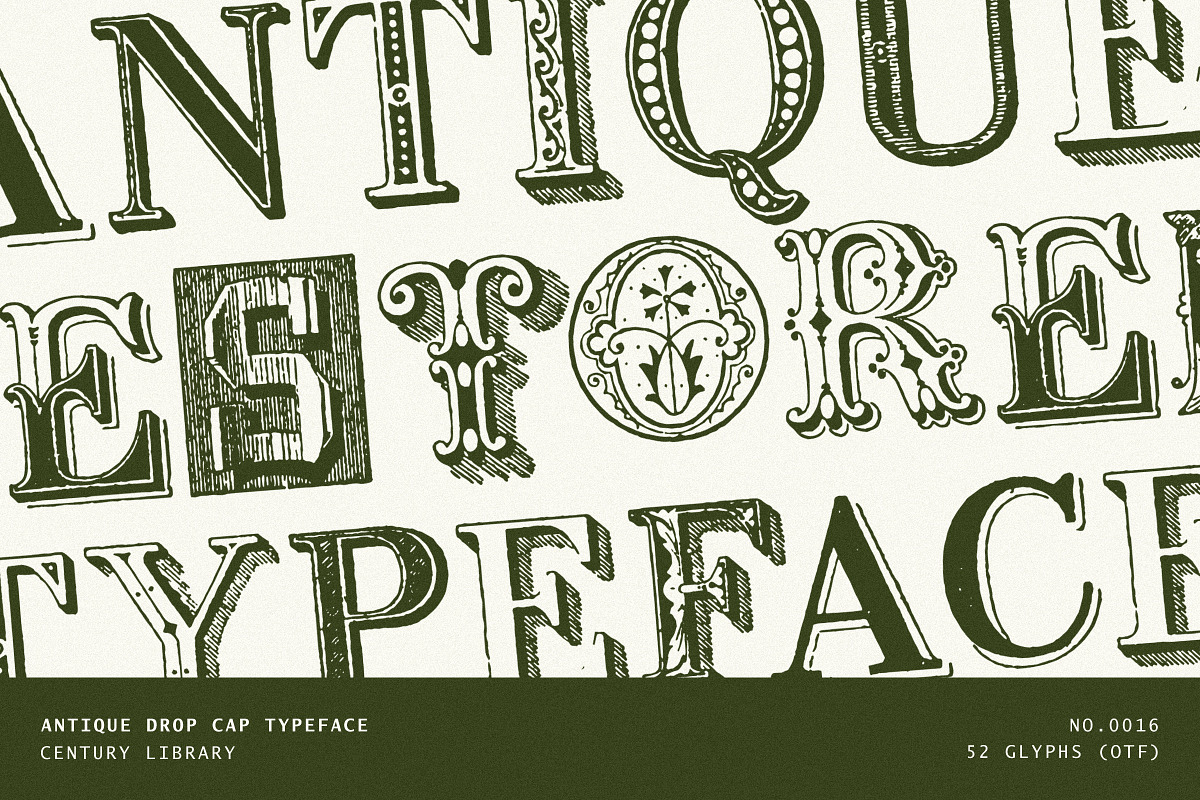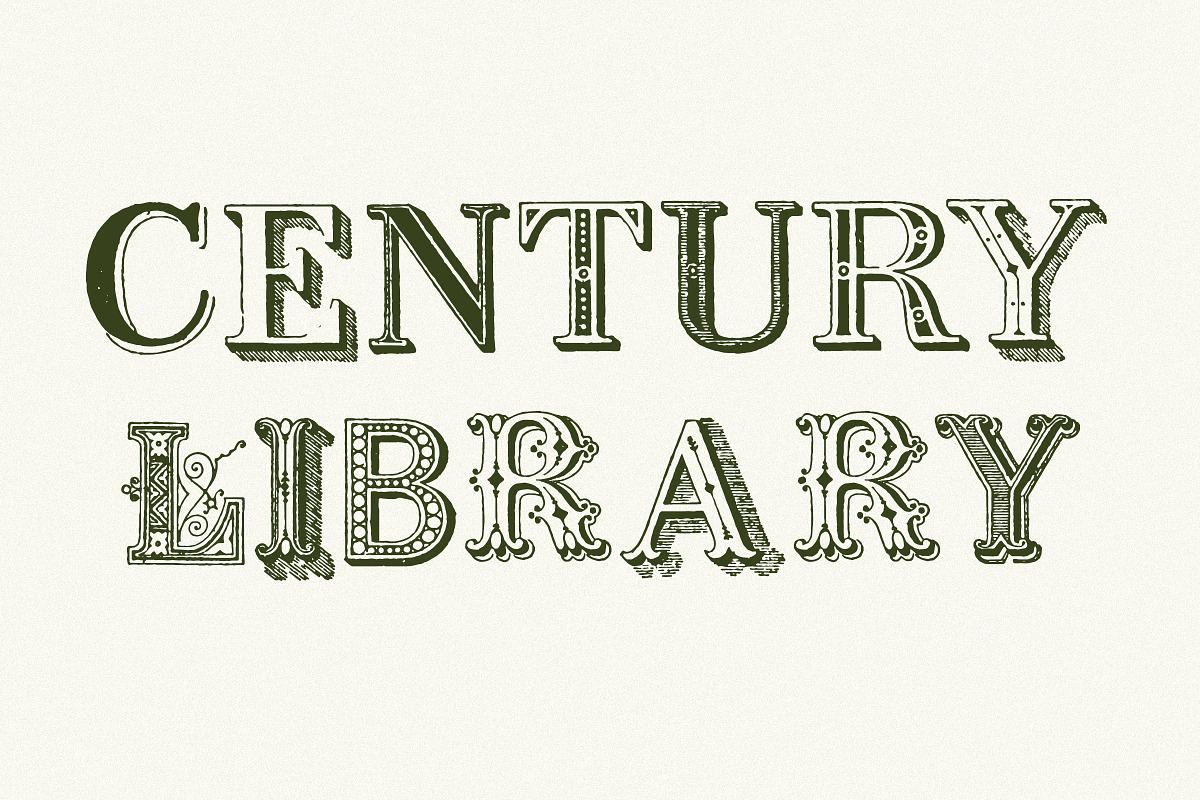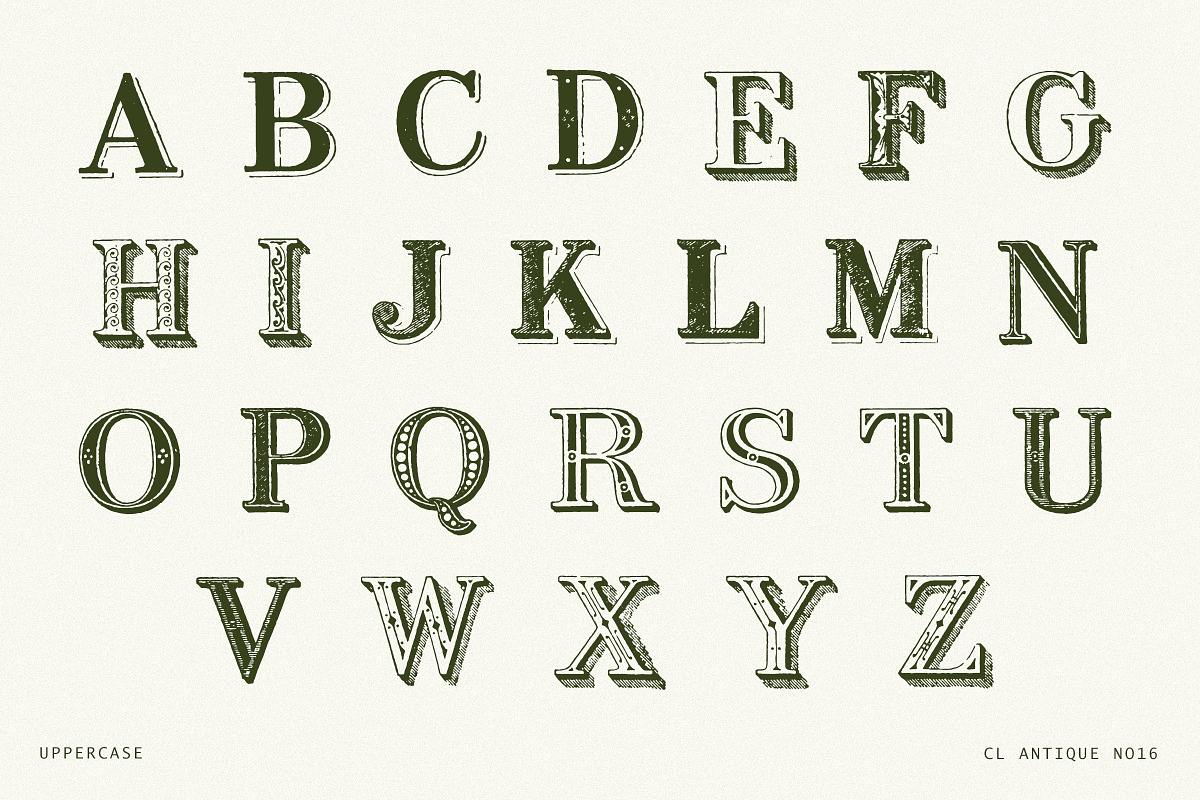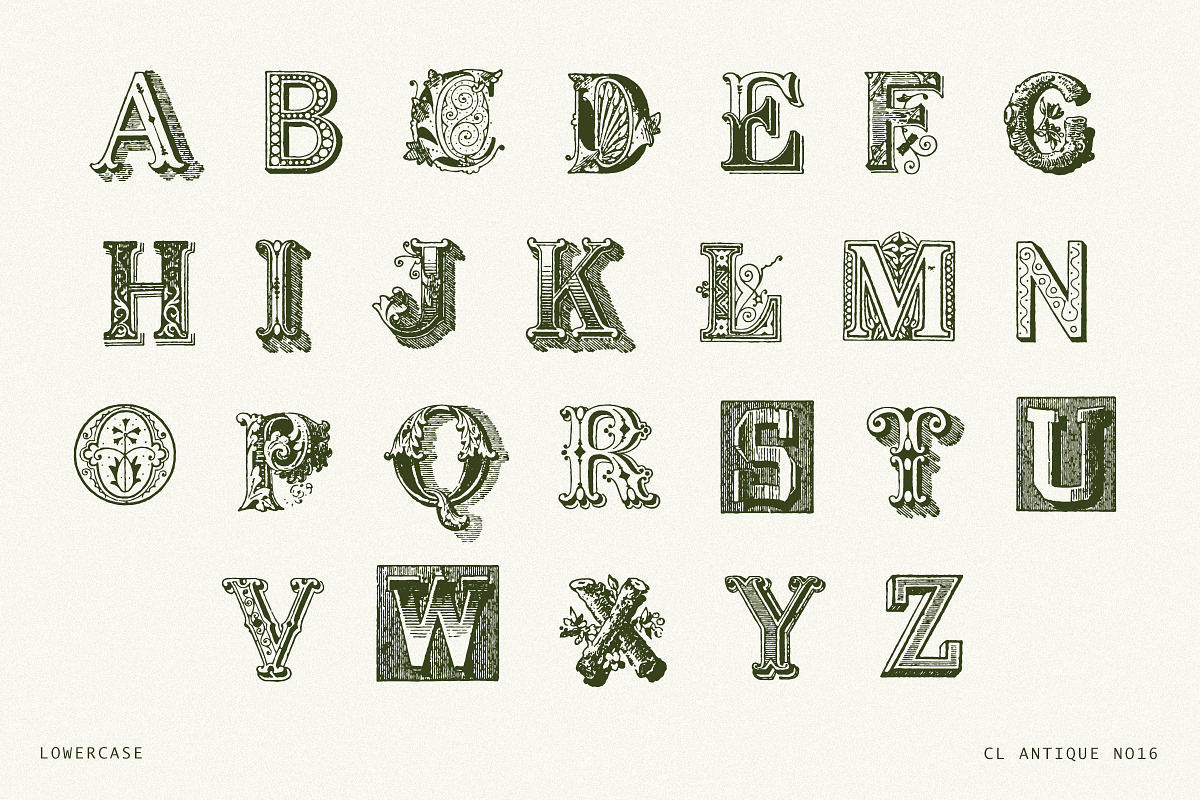
Decorative Vintage Drop Cap Font
Introducing CL Antique No.16 – a bold, decorative vintage drop cap font, lovingly restored from richly detailed 19th-century prints.
Part of the Century Library archive, this collection features a striking mix of engraved textures, intricate shading, ornamental flourishes, and strong serif structures. Each letter has been carefully scanned, restored, and converted into a functional font – preserving the craftsmanship, variety, and tactile beauty of authentic Victorian letterforms.
These aren't modern reinterpretations. Every glyph remains faithful to the original designs, with charming imperfections, varied linework, and the visual punch you'd expect from antique headline lettering.
Perfect for posters, logos, book covers, boutique branding, editorial design, and any creative project where a bold, historic touch is needed.
- No symbols, lowercase, or multilingual support (decorative capitals only)